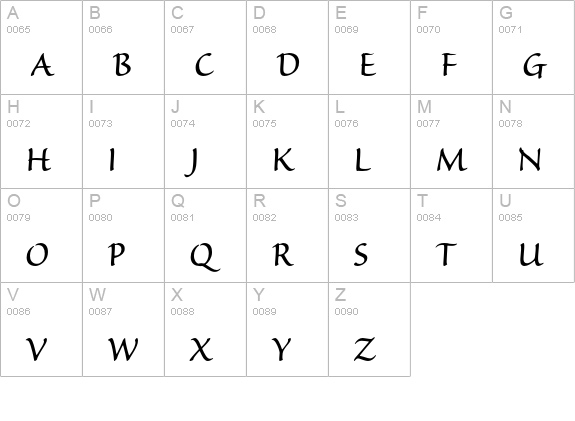
Sanvito Pro Caption is a stunningly elegant and versatile font that effortlessly captures attention with its refined beauty. This font stands out with its sleek and sophisticated design, making it the perfect choice for captivating captions and attention-grabbing headlines. With its clean lines and perfectly balanced proportions, Sanvito Pro Caption exudes a sense of modernity and timelessness. Its graceful curves and sharp edges create a harmonious blend that is both visually pleasing and highly legible, ensuring that your message is conveyed with utmost clarity. This font's versatility shines through in its ability to adapt to various design projects. Whether you're designing a magazine spread, a website, or a social media post, Sanvito Pro Caption effortlessly adapts to any context, adding a touch of class and elegance to your creations. One of the most remarkable aspects of Sanvito Pro Caption is that it is freely available to download at FontsMarket.com. This means that you can enhance your designs without any cost constraints, allowing your creativity to flow freely. The convenience of accessing this font for free ensures that you can experiment and explore its full potential without any limitations. So, if you're looking for a font that combines sophistication, versatility, and affordability, look no further than Sanvito Pro Caption. Download it today from FontsMarket.com and unlock a world of possibilities for your design endeavors.